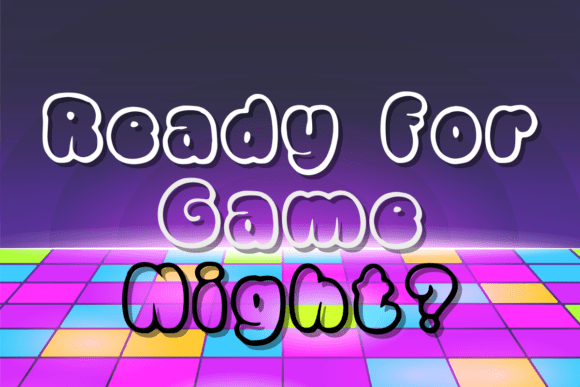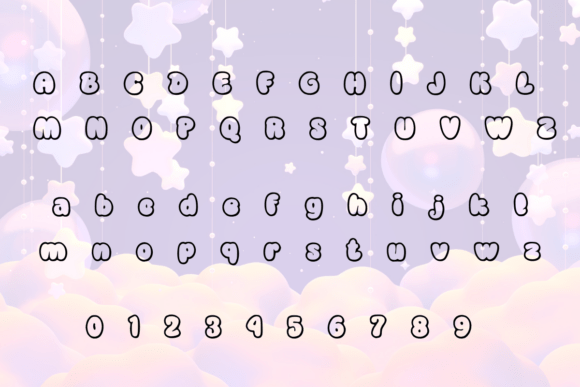
Bubble Arcade Font: The Ultimate Retro Display Font for Designers and Crafters
Are you a designer or crafter looking for a font that captures the essence of vintage arcade games and pixel art? Look no further than the Bubble Arcade Font! This bold retro display font is inspired by the classic games of yesteryear and is perfect for a variety of design projects, from birthday invitations to product packaging.
What is Bubble Arcade Font?
Bubble Arcade Font is a carefully crafted font that takes its cues from the pixel art of vintage arcade games. The font features bold, chunky letters with a retro feel that’s sure to bring a smile to the face of anyone who’s ever spent hours playing classic arcade games. The font includes standard glyphs, making it easy to use for a wide range of design projects.
What Can I Use Bubble Arcade Font For?
Bubble Arcade Font is a versatile font that can be used for a wide range of design projects, including:
- Birthday Invitations: Create custom birthday invitations that are sure to delight kids and adults alike with the Bubble Arcade Font.
- Children’s Designs: Use the font to create fun and engaging designs for kids, such as stickers, coloring pages, and more.
- Posters: Create eye-catching posters for events, promotions, or just for fun using the Bubble Arcade Font.
- Product Packaging: Add a touch of retro flair to your product packaging with the Bubble Arcade Font.
Why Choose Bubble Arcade Font?
There are many reasons to choose Bubble Arcade Font for your design projects. Here are just a few:
- Unique and eye-catching: The font’s bold, retro design is sure to grab attention and add a touch of fun to your designs.
- Versatile: The font can be used for a wide range of design projects, from birthday invitations to product packaging.